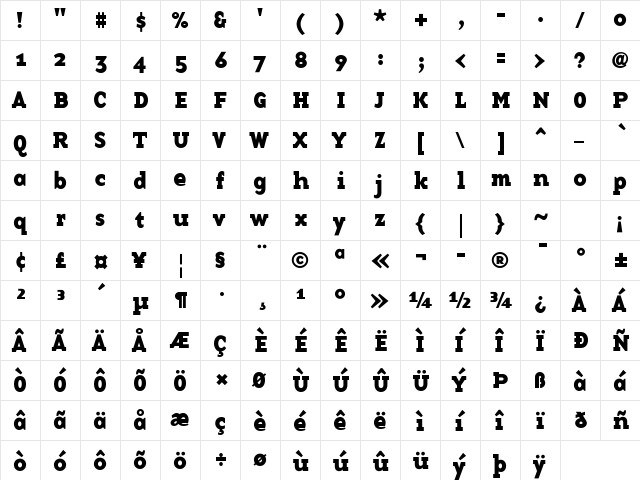
BaseTwelveSerifB Roman
Design Context for BaseTwelveSerifB Typeface
BaseTwelveSerifB brings classic typographic sensibility to the table — its serifs and measured letterforms reflect centuries of print heritage.
Pro Tip: Set BaseTwelveSerifB with slightly loose tracking in headlines to let each letterform's detail read clearly at display sizes.